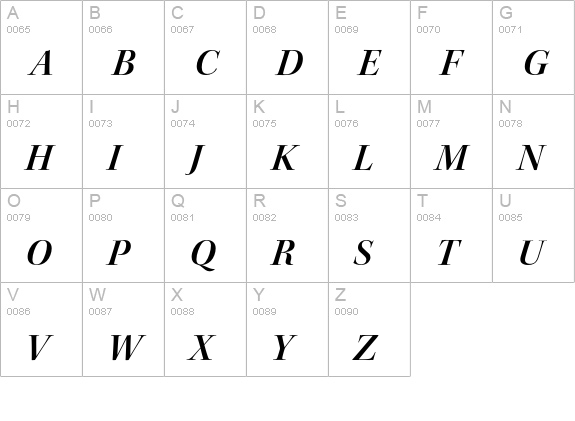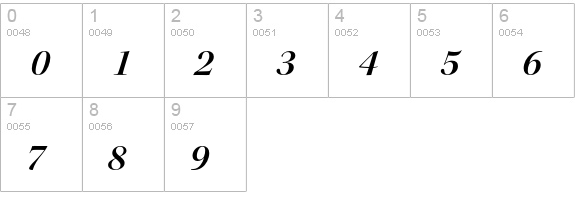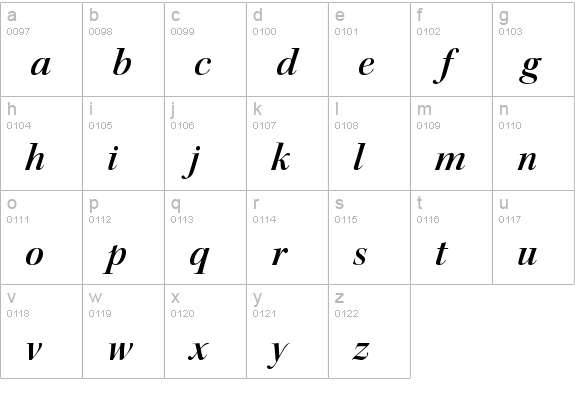
Kepler Std Semibold Italic Display Font Details
Kepler Std Semibold Italic Display is a sub-bold, structured, italic variant in the Kepler typeface family \xE2\x80\x94 well suited to sub-headlines and emphasised passages.
Introducing Kepler Std Semibold Italic Display font - a visually stunning typeface that exudes elegance and sophistication. This font is specifically designed to make a bold statement and grab attention with its unique combination of semibold weight and italic slant. Kepler Std Semibold Italic Display font is perfect for a wide range of design projects, from branding and advertising to editorial layouts and packaging design. Its sleek and modern look adds a touch of professionalism to any project, making it a versatile choice for both digital and print media. With its carefully crafted letterforms and distinctive curves, Kepler Std Semibold Italic Display font stands out from the crowd and instantly captivates the viewer. It boasts a harmonious balance between legibility and style, making it suitable for both headings and body text. And the best part? Kepler Std Semibold Italic Display font is absolutely free to download! You can get your hands on this amazing typeface at FontsMarket.com, a reputable source for high-quality fonts. Whether you're a professional designer or a creative enthusiast, this font is a valuable addition to your font collection. So don't miss out on the opportunity to enhance your designs with Kepler Std Semibold Italic Display font. Download it for free today at FontsMarket.com and experience the beauty and versatility of this exceptional typeface.